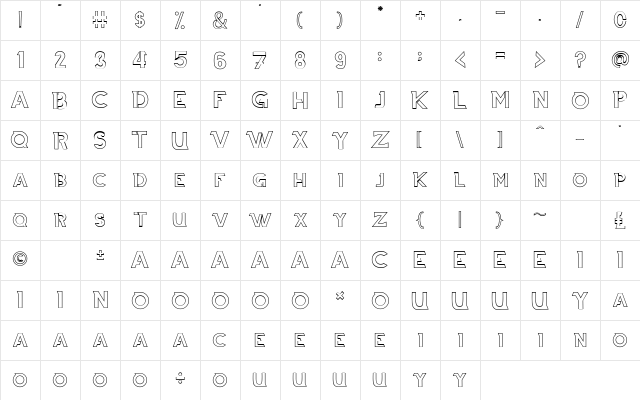
THIAGA Outline
| Style | Outline |
| Foundry | Edric Studio |
| Designer | Aghnia |
Design Context for THIAGA Typeface
THIAGA is built around its visual character rather than neutral utility — its distinctive forms are designed to make an impression at display sizes.
Font Pairing: Pair with a clean neutral sans-serif for body copy to let THIAGA's character lead without overwhelming the composition.
Pro Tip: Treat THIAGA as the centrepiece of your typographic hierarchy. One strong heading set in a decorative face can carry an entire layout.